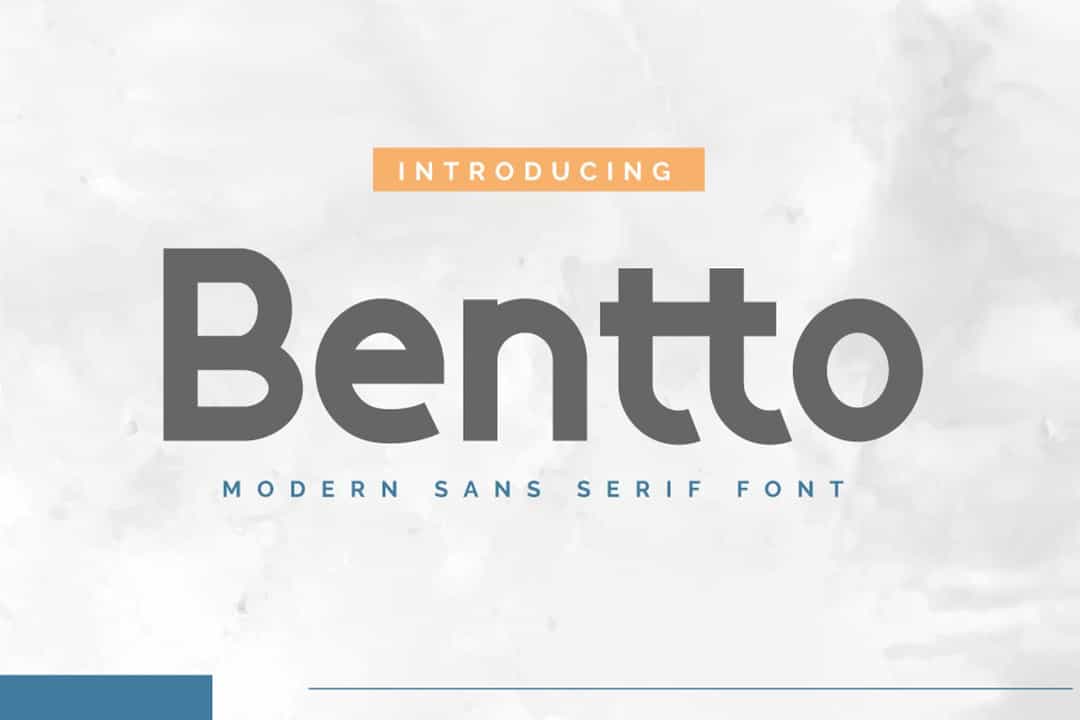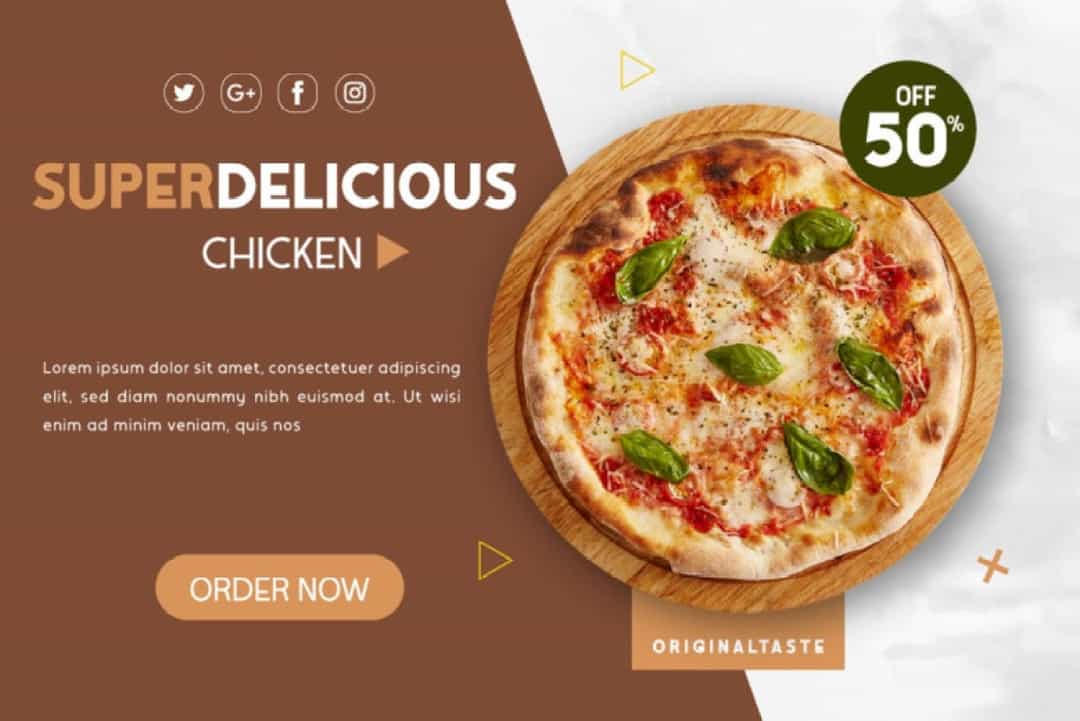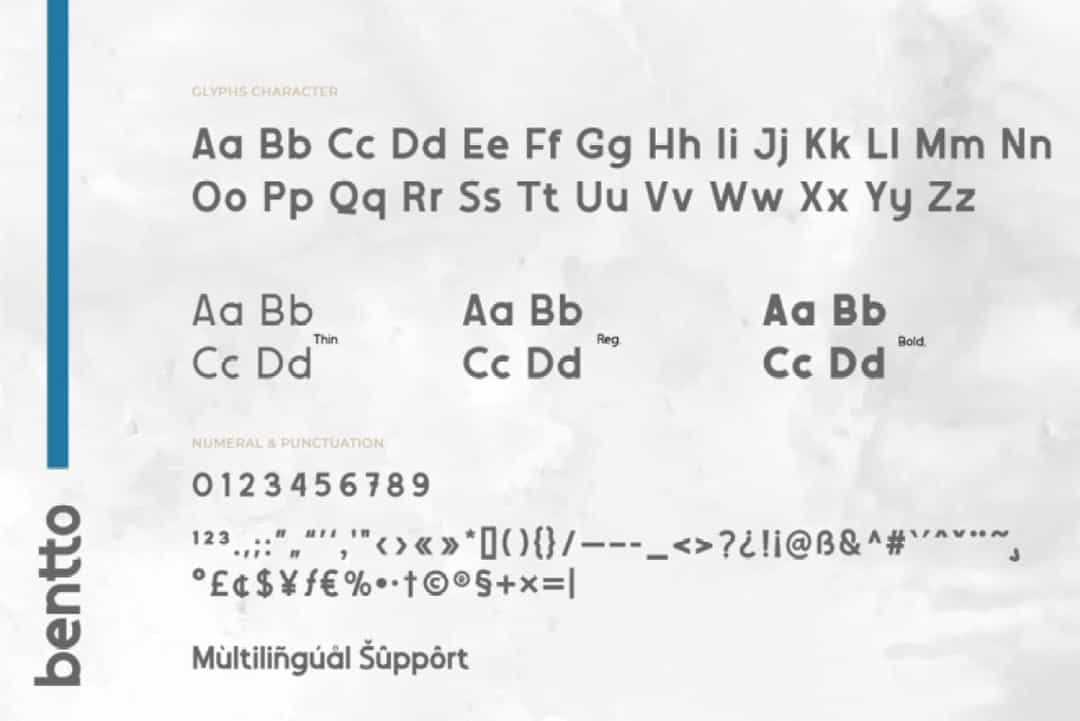
Bentto Contemporary Sans Serif Font is a modern and clean font that can be used for any type of design with male or female touch that will make the design look elegant. This font has simple, cheerful, and oriental style characters to use in daily designs in both formal and informal designs that have elements of fun and playfulness in them – it will look great.